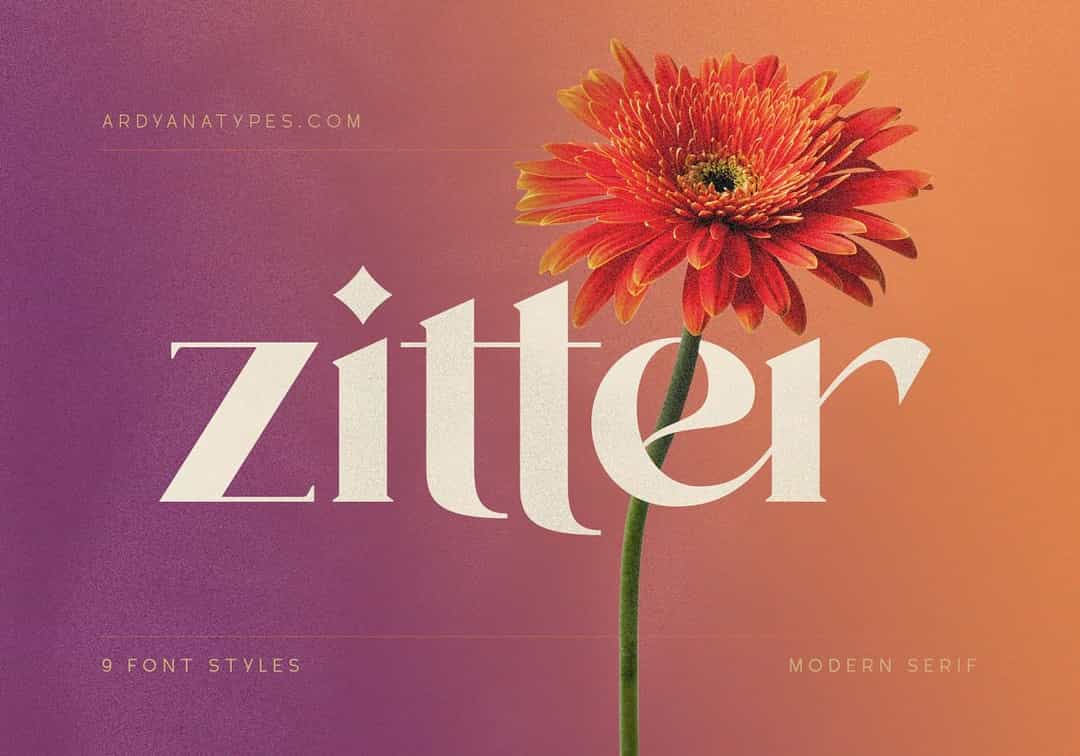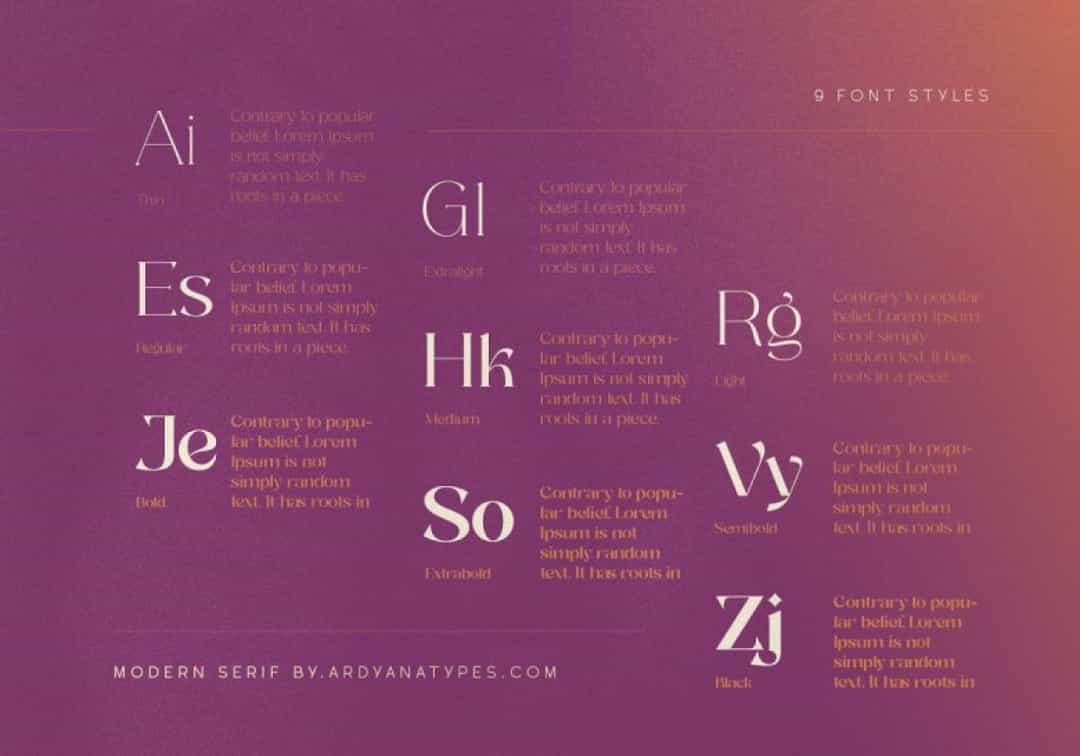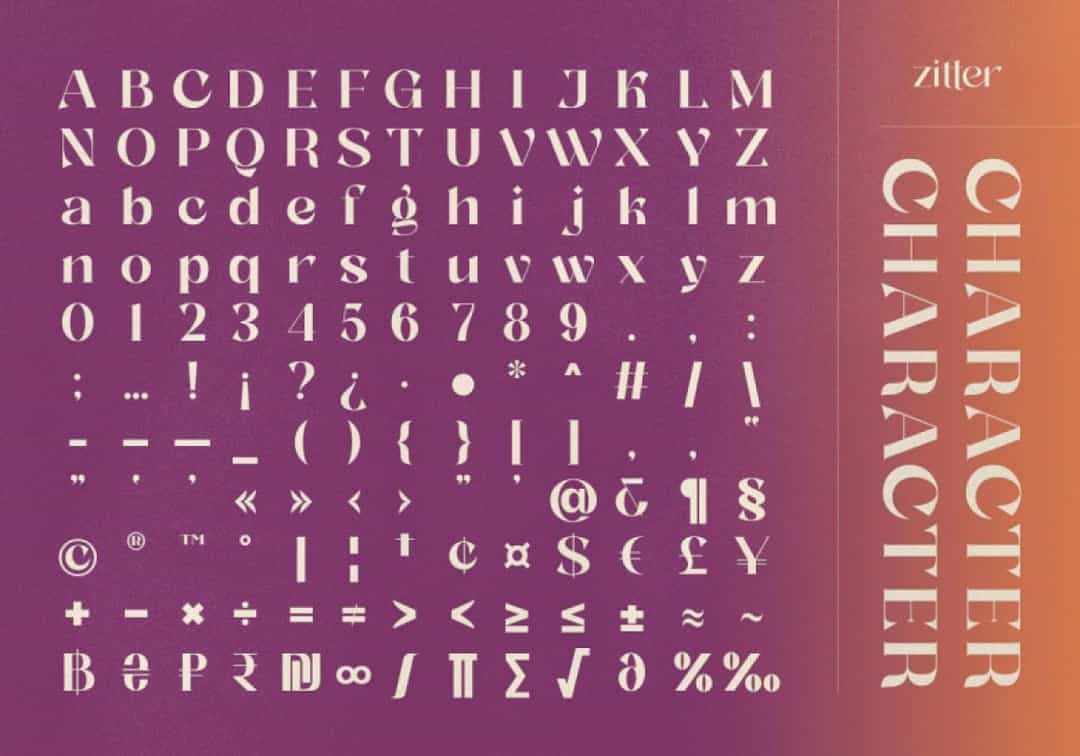
Zitter is an elegant serif-style font with many appealing qualities that makes your designs appear more desirable and sophisticated. Perfect as a logo or promotional font for companies, its decorative serif adds artistic charm when creating distinctive, vintage and sophisticated themes.